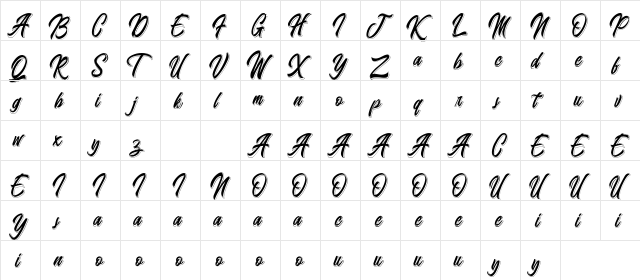
Badminton Of Shadow Regular
Design Context for Badminton Of Shadow Typeface
Badminton Of Shadow brings ornamental detail and strong personality to headlines and identities, where visual impact matters more than quiet functionality.
Font Pairing: Pair with a clean neutral sans-serif for body copy to let Badminton Of Shadow's character lead without overwhelming the composition.
Pro Tip: Use Badminton Of Shadow exclusively at display sizes — it was designed to be seen, not read at length. Let a neutral companion handle body copy.